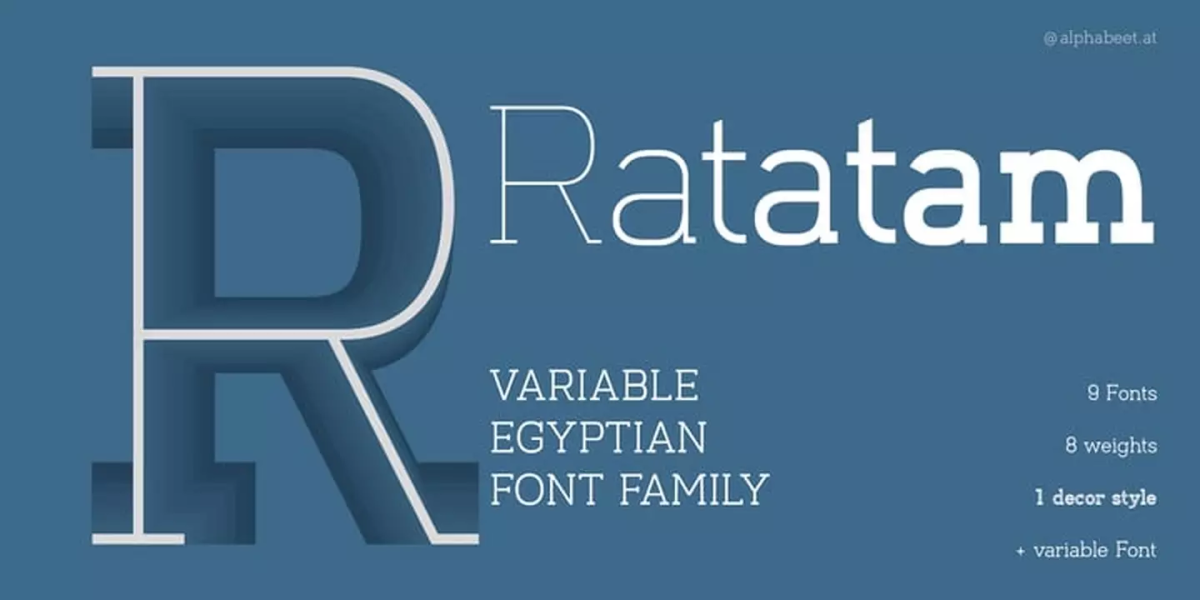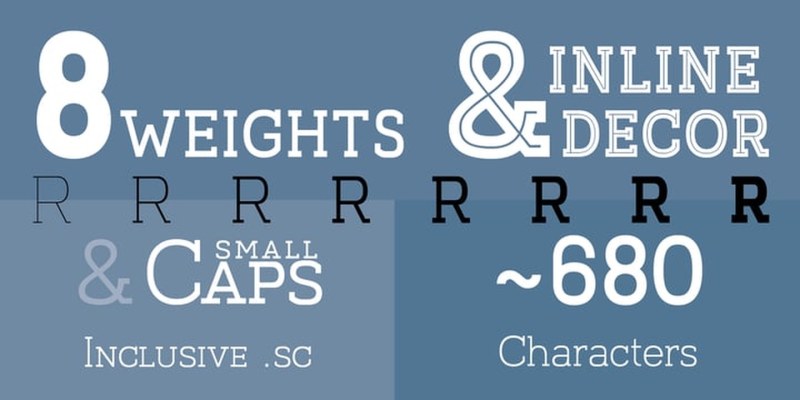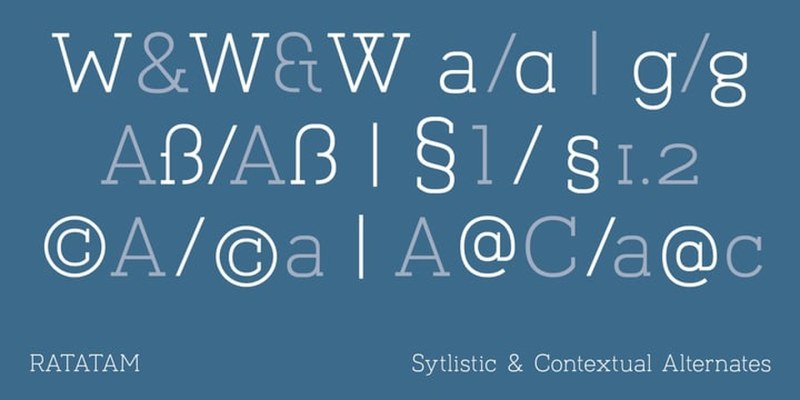
Ratatam Font Family
Ratatam is a variable Egyptian font face. There are eight weights from thin to black, but a lot more opportunities with the variable font, and a décor style with inner elements. Useful open type features, which are optional as well as contextual alternates and positions, are defined, all small caps integrated.
Ratatam Font Family is a Slab Serif Fonts font that brings a professional and versatile look to your projects. Ratatam is a variable Egyptian font face.